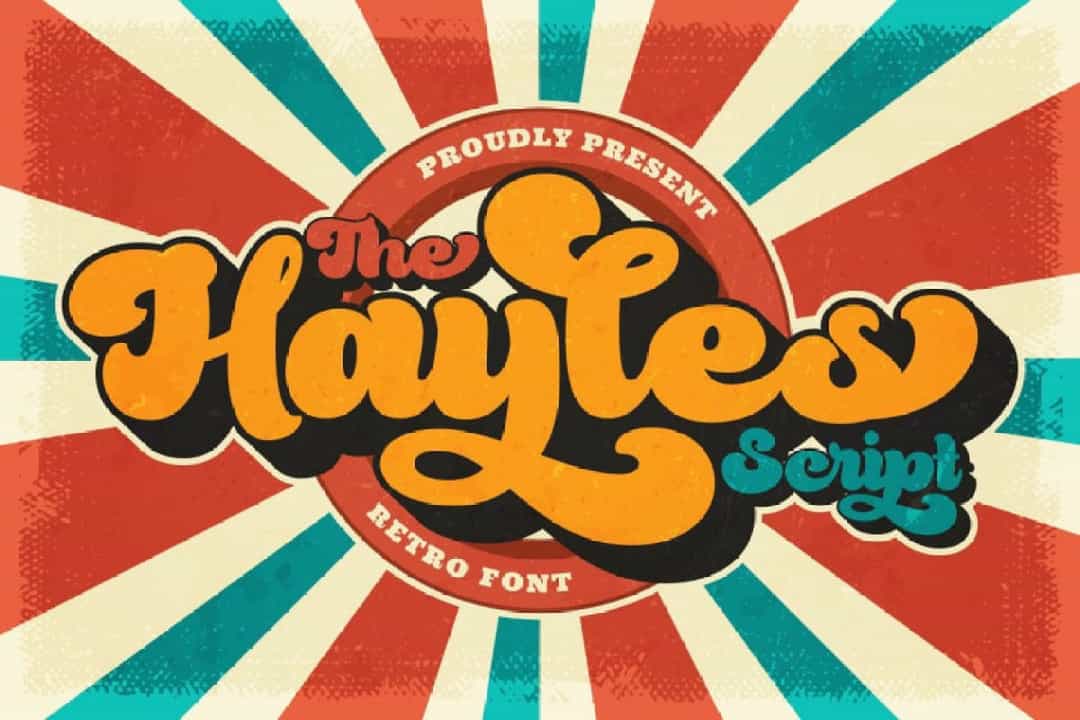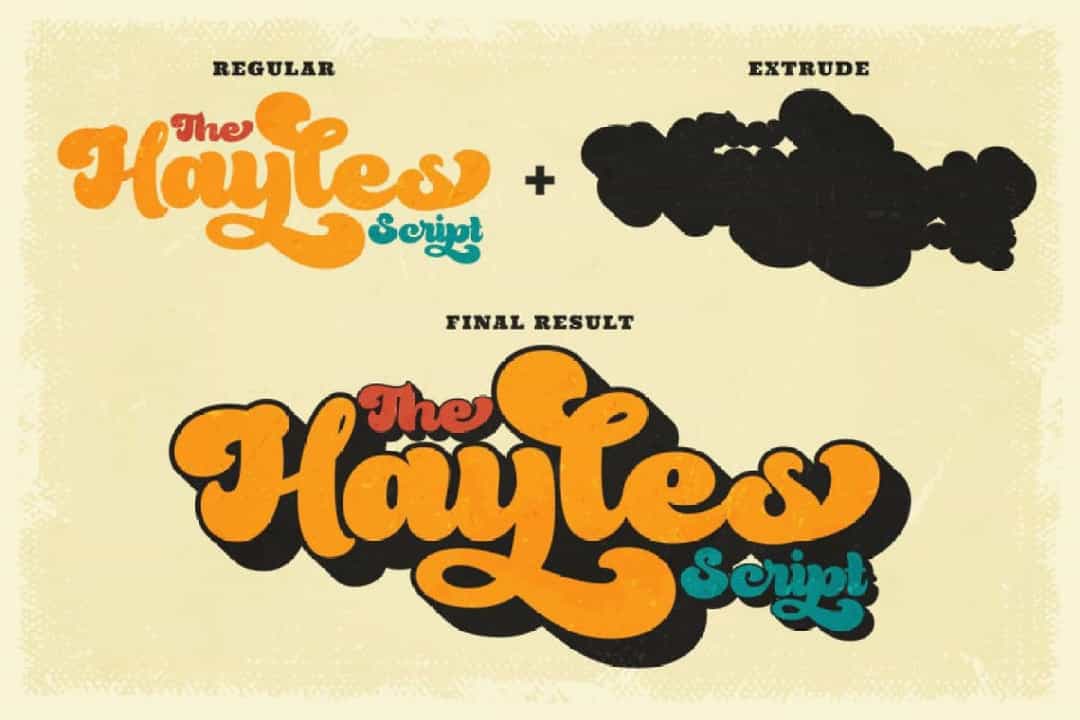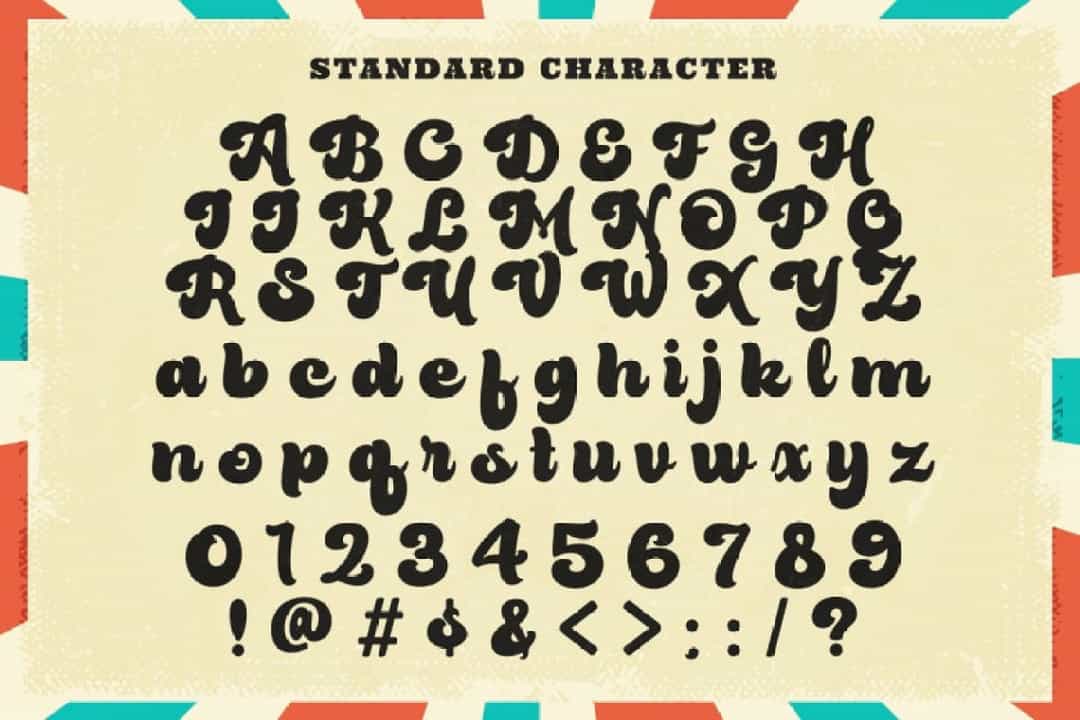
Hayles is an exciting retro-style display font ready to elevate your designs to new heights. Include it in posters, stickers clothing or social media posts featuring retro imagery for maximum impact and amaze your viewers with each post or share!